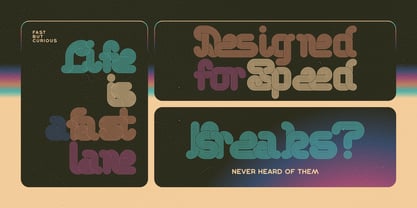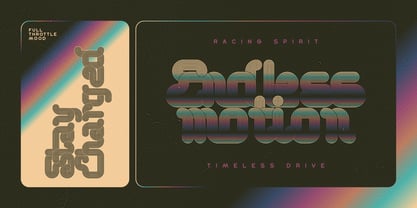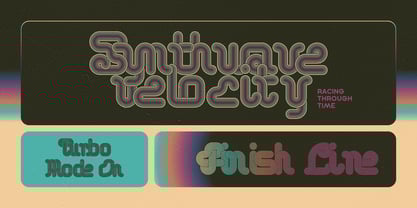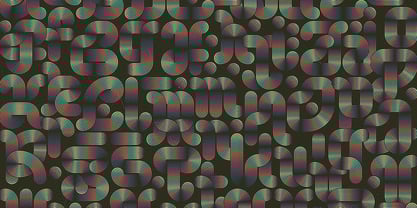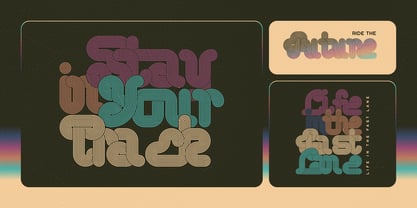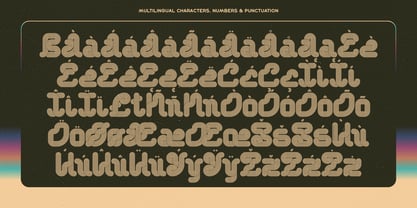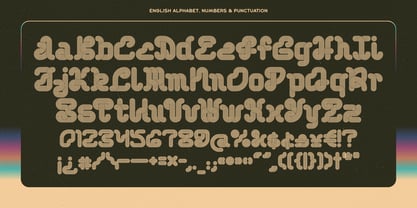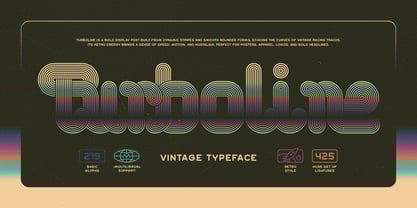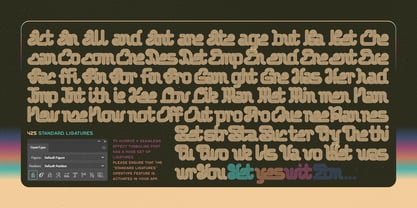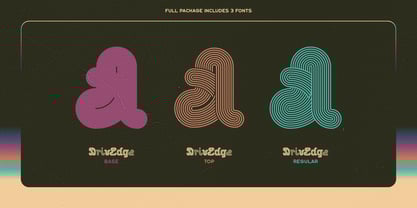
Turboline
The Turboline Font Family was designed by Gleb Guralnyk and published by Gleb Guralnyk. Turboline contains 3 styles and family package options. More about this family
Turboline is a bold display font built from dynamic stripes and smooth rounded forms, echoing the curves of vintage racing tracks. Its retro energy brings a sense of speed, motion, and nostalgia, perfect for posters, apparel, logos, and bold headlines. To achieve a seamless effect Turboline font has a huge set of ligatures, please ensure that the "Standard Ligatures" OpenType feature is activated in your app. Turboline font supports most European languages, refer to the screenshots to view full set of available characters.